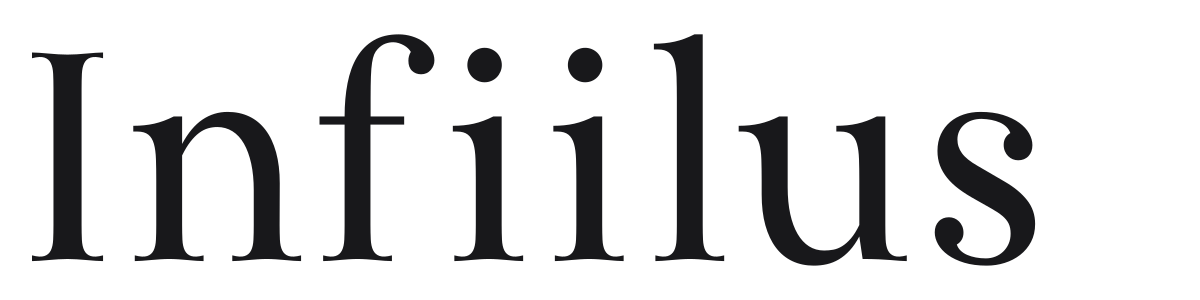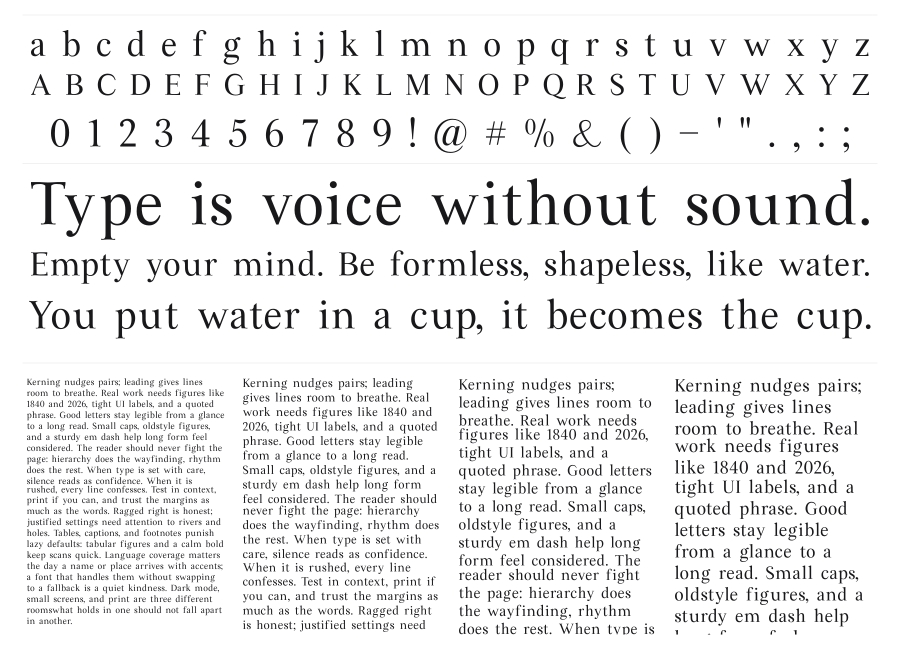
Infiilus
by Lerima · Website
Infiilus is a classical transitional serif with generous stroke contrast and graceful ball terminals. It draws on the long tradition between old-style and modern serifs, achieving a balance that feels both bookish and contemporary. Works comfortably in editorial text settings and at headline scale alike.